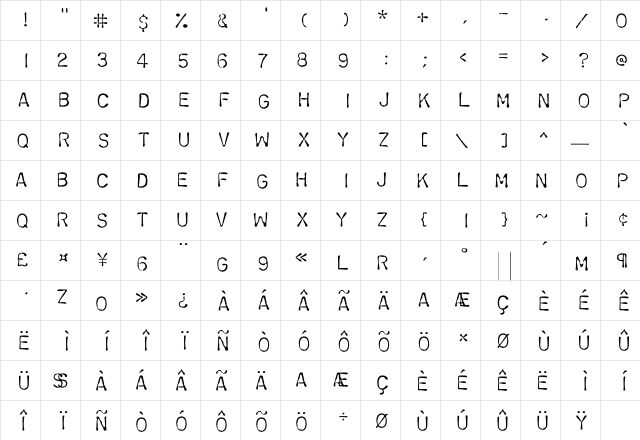
Chromosome Light
Design Context for Chromosome Typeface
Chromosome takes a measured approach to typography — its balanced proportions and neutral character make it a reliable workhorse for both digital and print work. The delicate stroke weight brings airiness and refinement to layouts.